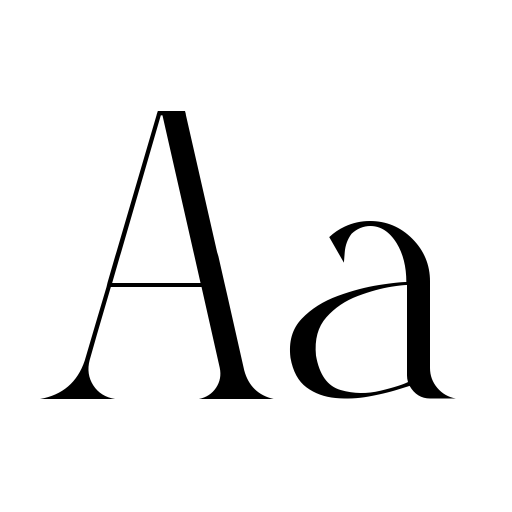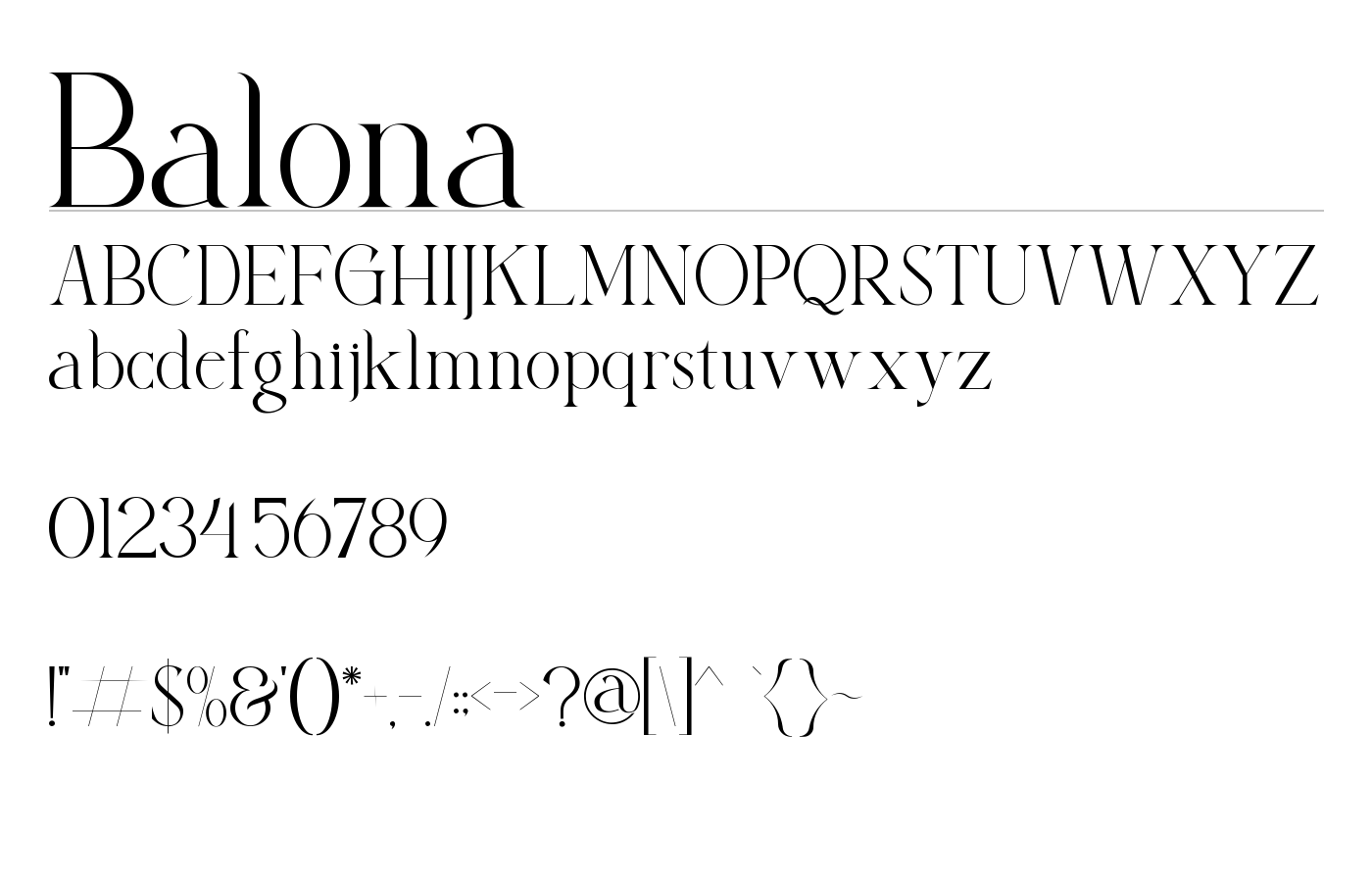
Balona is a modern serif typeface characterized by its elegant contrast between thick and thin strokes and delicate, bracketed serifs. Its tall, narrow letterforms and refined details give it a sophisticated and stylish appearance, making it ideal for luxury branding, editorial headlines, and fashion-focused designs where a touch of exclusivity and grace is desired. This font works well in display contexts, bringing a sleek, high-end feel to logos, packaging, and upscale visual communications.
Balona Font
About Balona Font
| Designer | Rio |